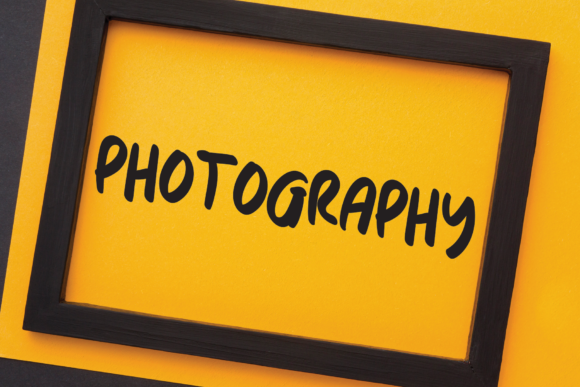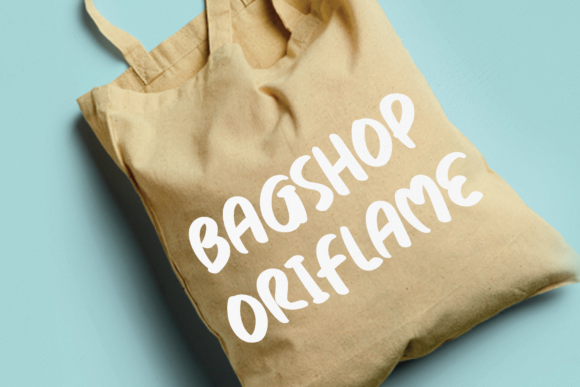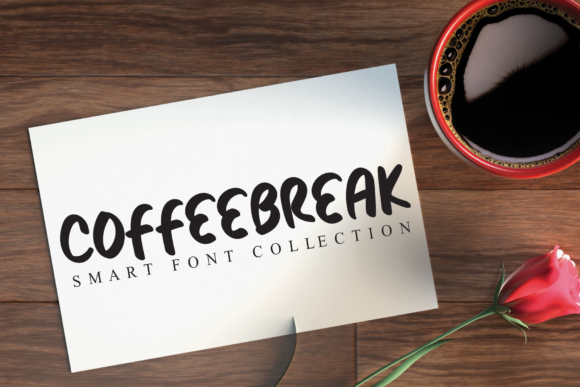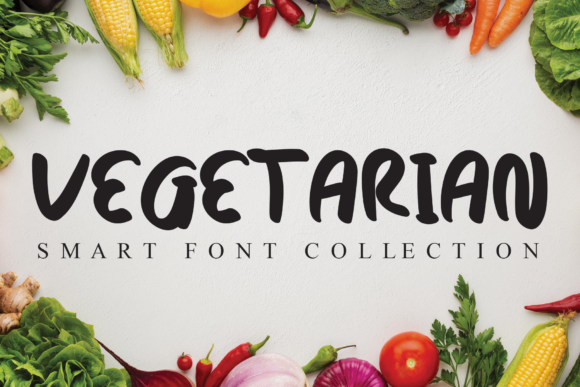
Cowsmilk Font: The Perfect Addition to Your Design Collection
Are you a designer or crafter looking for a font that can add a touch of joy and playfulness to your creations? Look no further than Cowsmilk Font! This adorable display font is perfect for a variety of design projects, from cartoon-related designs to children’s games, quotes, titles, brand names, book covers, posters, and more.
What is Cowsmilk Font?
Cowsmilk Font is a cute, adaptable, and friendly display font that is sure to bring a smile to your face. Its unique and charming design makes it an excellent choice for any project that requires a touch of whimsy and fun. Whether you’re creating a children’s book, a cartoon, or a playful advertisement, Cowsmilk Font is the perfect addition to your design collection.
Key Features of Cowsmilk Font
So, what makes Cowsmilk Font so special? Here are just a few of its key features:
- Cute and Playful Design: Cowsmilk Font has a unique and charming design that is sure to add a touch of joy to your creations.
- Adaptable: This font is highly adaptable and can be used for a wide range of design projects, from children’s games to book covers.
- Easy to Read: Despite its playful design, Cowsmilk Font is easy to read and understand, making it perfect for titles, headings, and quotes.
- High-Quality: Cowsmilk Font is a high-quality font that is designed to look great in any design project.
Uses for Cowsmilk Font
So, what can you use Cowsmilk Font for? The possibilities are endless! Here are just a few ideas to get you started:
- Cartoon-Related Designs: Cowsmilk Font is perfect for cartoon-related designs, such as character names, titles, and dialogue.
- Children’s Games: This font is great for children’s games, such as titles, instructions, and game text.
- Quotes and Titles: Cowsmilk Font is perfect for quotes and titles that require a touch of joy and playfulness.
- Brand Names: This font can be used to create unique and memorable brand names that stand out from the crowd.
- Book Covers: Cowsmilk Font is great for book covers, especially for children’s books and young adult fiction.
- Posters: This font can be used to create eye-catching posters that grab attention and leave a lasting impression.
Why Choose Cowsmilk Font?
So, why should you choose Cowsmilk Font for your design projects? Here are just a few reasons:
- Unique Design: Cowsmilk Font has a unique and charming design that will set your creations apart from the crowd.
- High-Quality: This font is a high-quality font that is designed to look great in any design project.
In conclusion, Cowsmilk Font is a great addition to any design collection. Its cute and playful design, adaptability, and high-quality make it perfect for a wide range of design projects. Whether you’re a designer or crafter, Cowsmilk Font is sure to bring a touch of joy and playfulness to your creations. So why wait? Download Cowsmilk Font today and start creating!